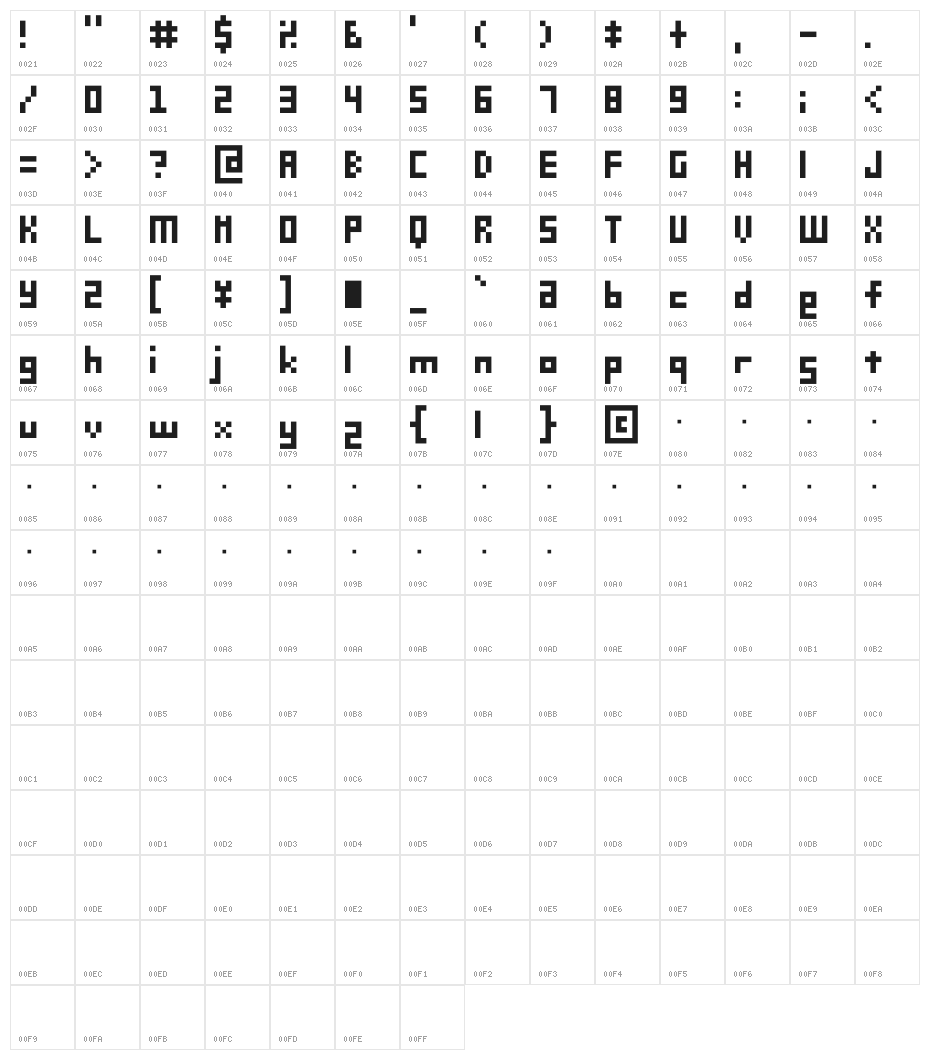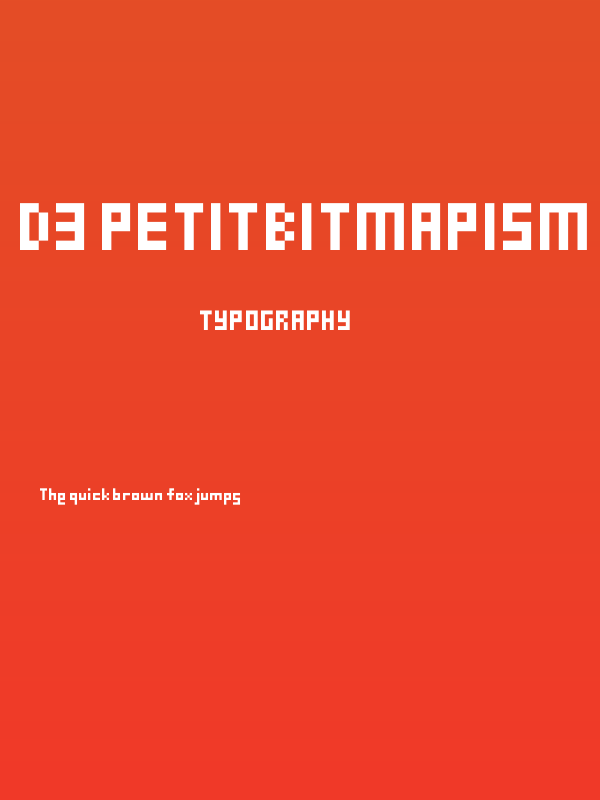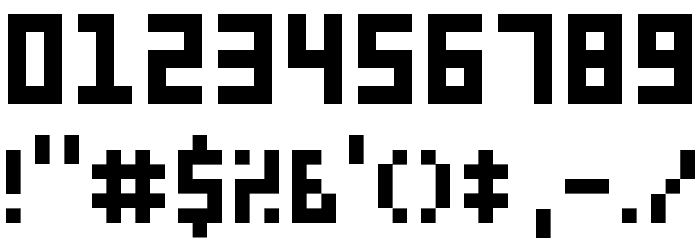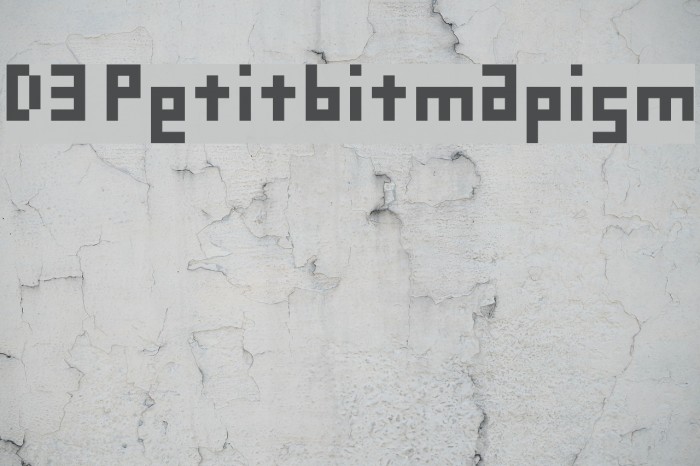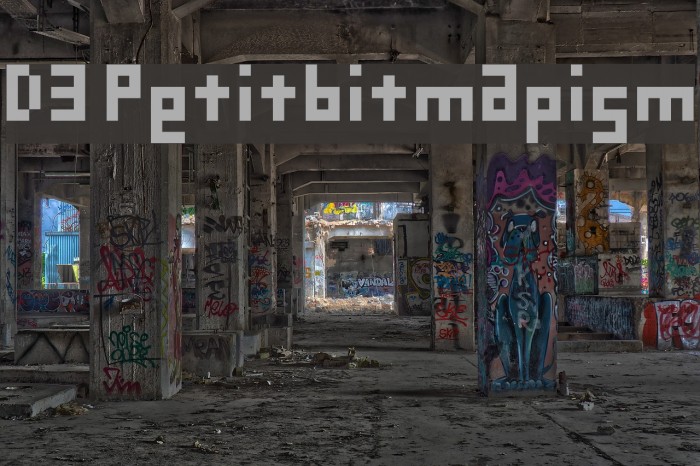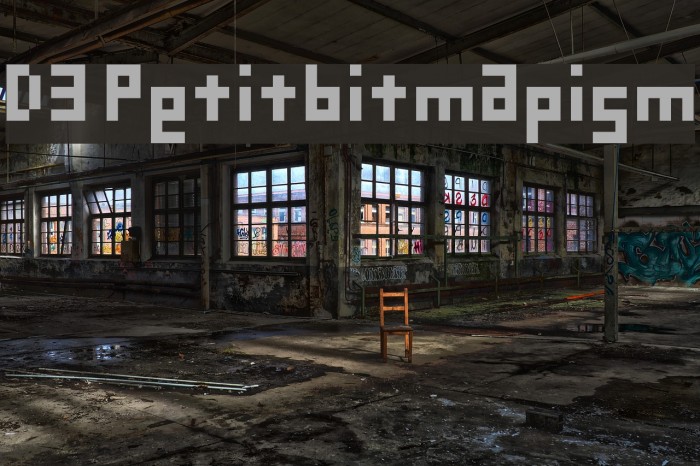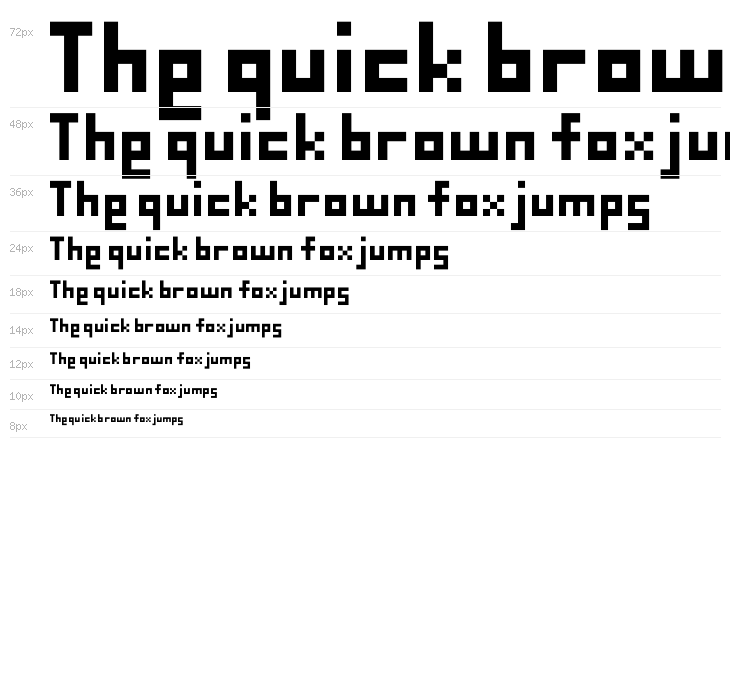
D3 Petitbitmapism Font
| Gesamtstil | Vintage |
| Anwendungsfall | Headlines, Logos, Digital Art |
| Vorgeschlagene Projekte | Ideal for projects that aim to capture a retro or digital theme, such as video game graphics, tech-themed posters, or digital art. It can also be used for branding in tech startups or for creating eye-catching headlines in digital publications. |